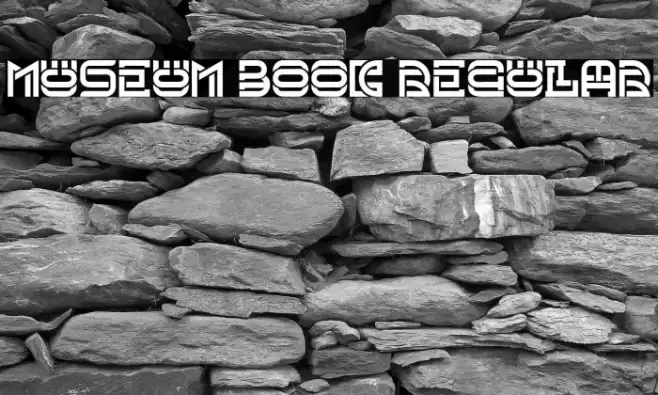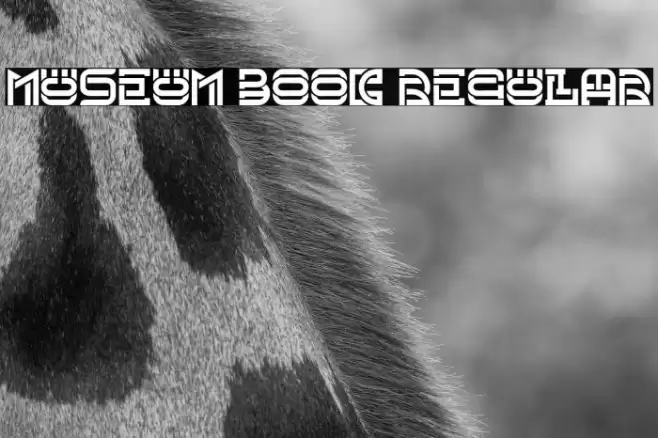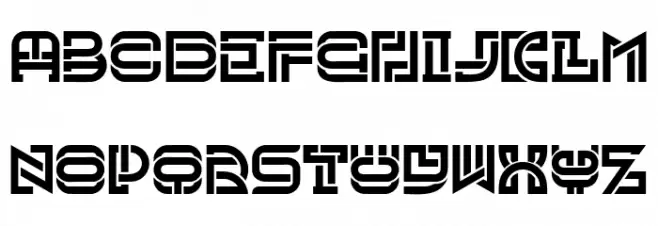
Museum Book Regular Font
Museum Book Regular Description
This font features a bold, geometric design with a futuristic aesthetic. The characters are constructed with thick lines and sharp angles, creating a sense of structure and modernity. The uppercase letters are particularly striking, with unique shapes that emphasize symmetry and balance. The lowercase letters maintain the same boldness, ensuring consistency throughout the typeface. The numerals and special characters are designed to match the overall style, making this font versatile for various applications. Its distinct appearance makes it ideal for projects that require a strong visual impact.
A bold, geometric font with a futuristic and structured design from Uncategorized fonts.
- Proposed Projects: Ideal for branding, posters, album covers, and any project needing a modern, impactful typeface.